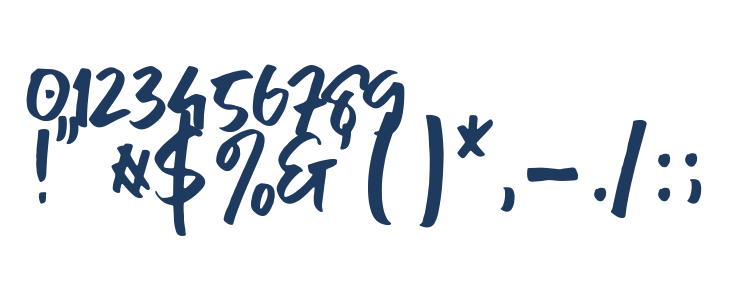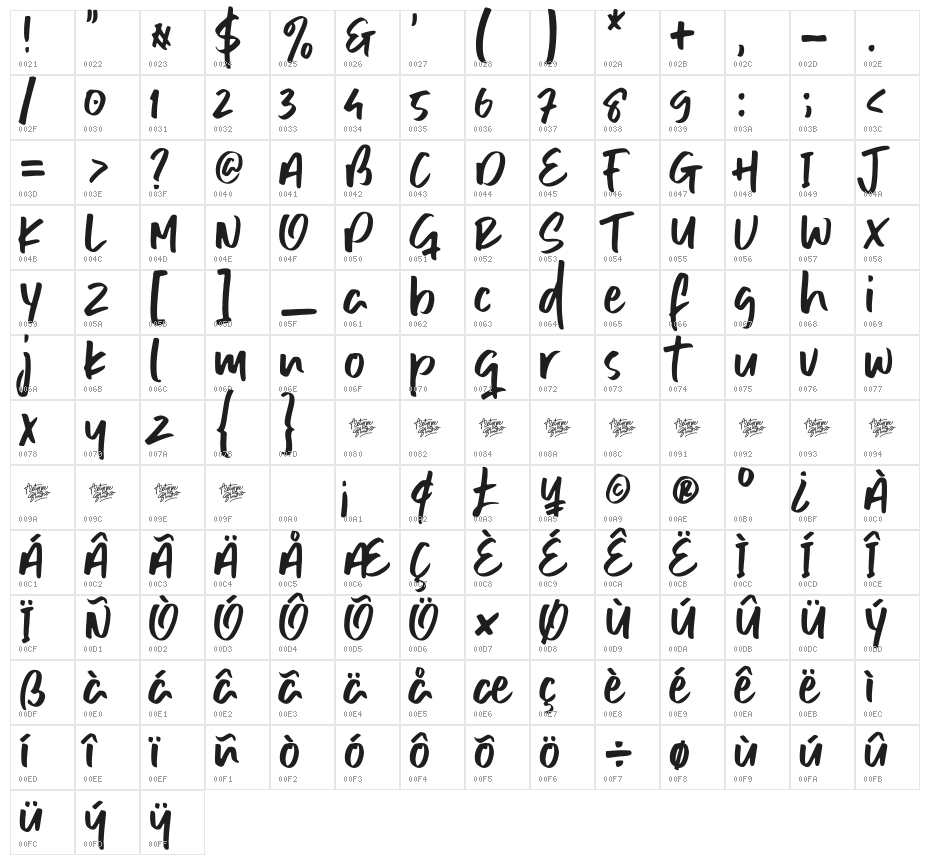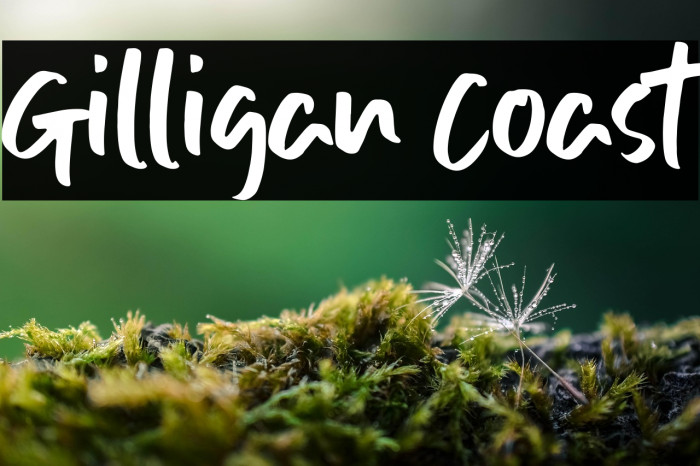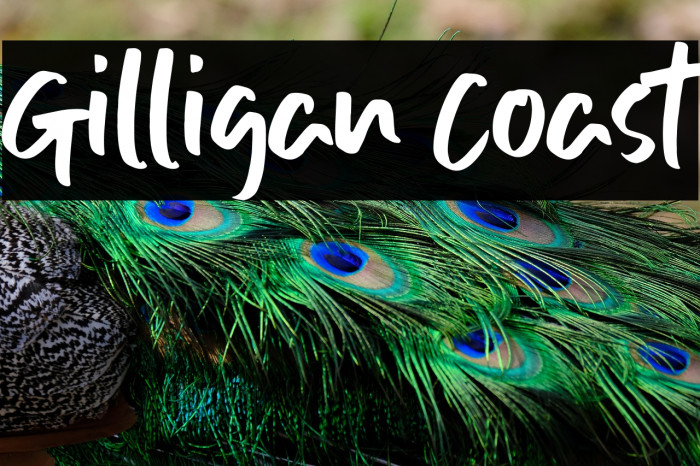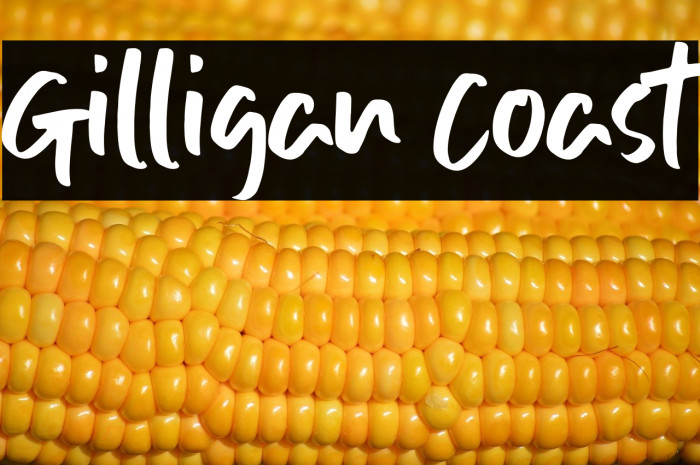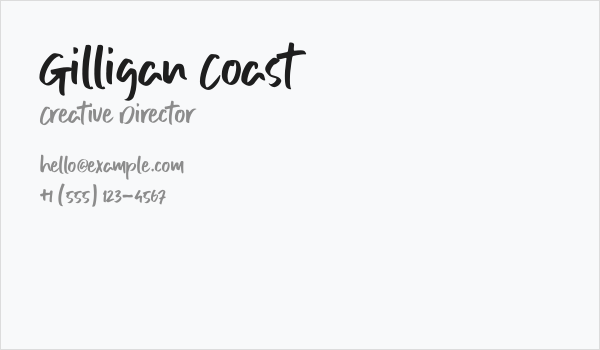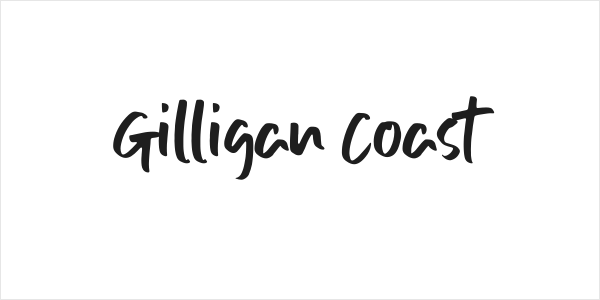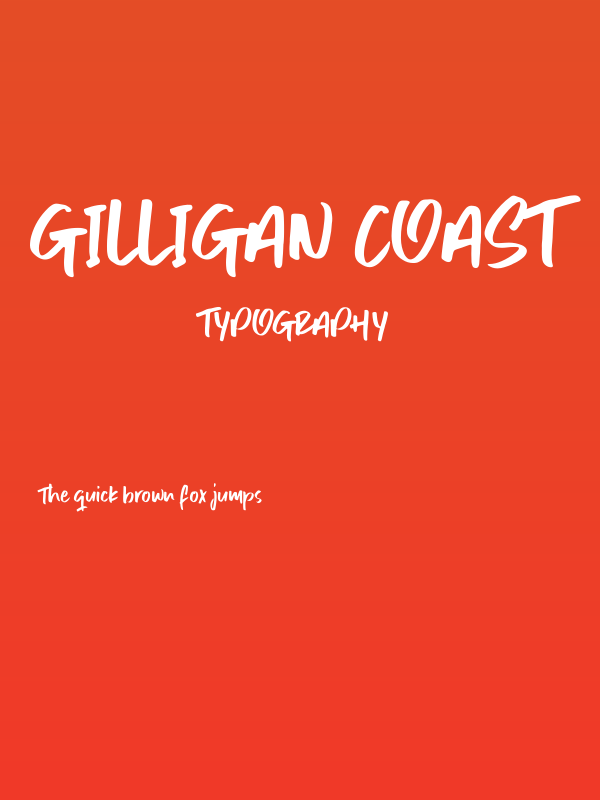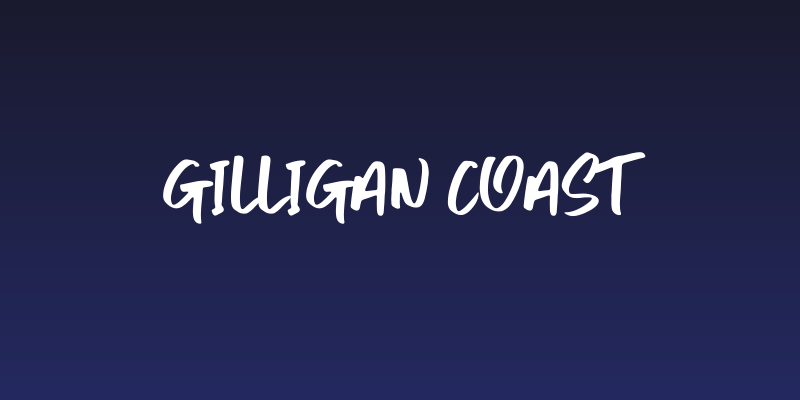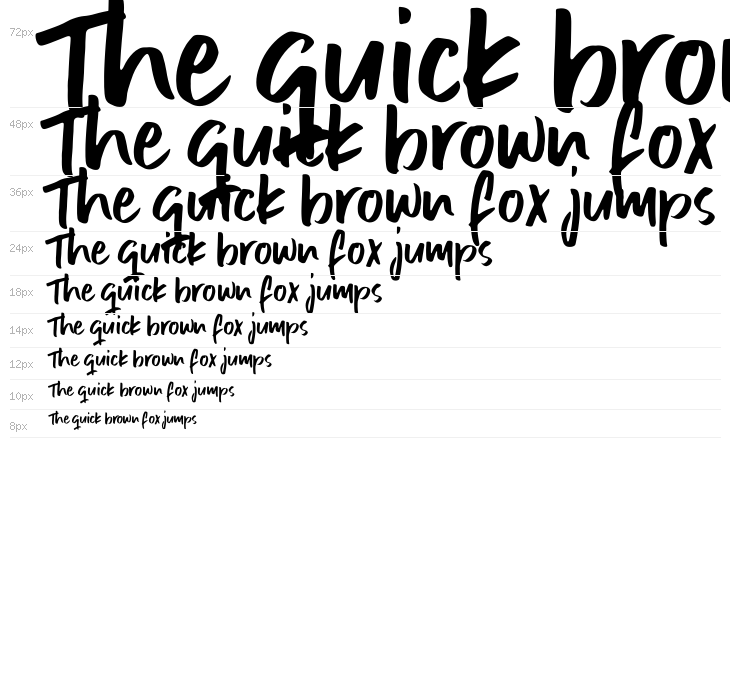
Gilligan Coast Font
Gilligan Coast Description
This font features a bold and expressive handwritten style, characterized by its dynamic and fluid strokes. The letters are slightly slanted, giving a sense of movement and energy. The uppercase and lowercase letters maintain a consistent style, with rounded edges and a casual, informal appearance. The numerals and special characters follow the same aesthetic, ensuring a cohesive look across all text. The overall design is playful and modern, making it suitable for projects that require a personal touch or a creative flair. The font's boldness ensures readability while maintaining an artistic edge.
Overall StyleModern, Playful
Use CaseHeadlines, Logos, Creative projects
Proposed ProjectsIdeal for creative projects such as greeting cards, posters, social media graphics, and branding materials that require a personal and artistic touch.